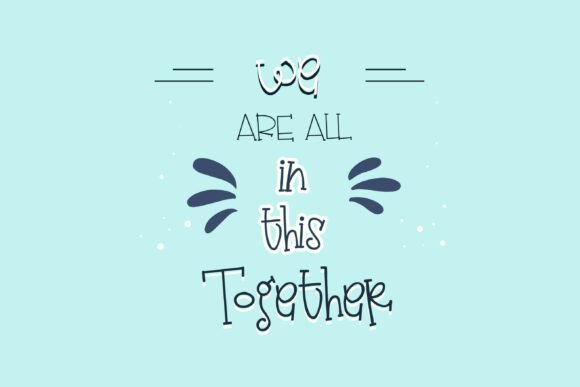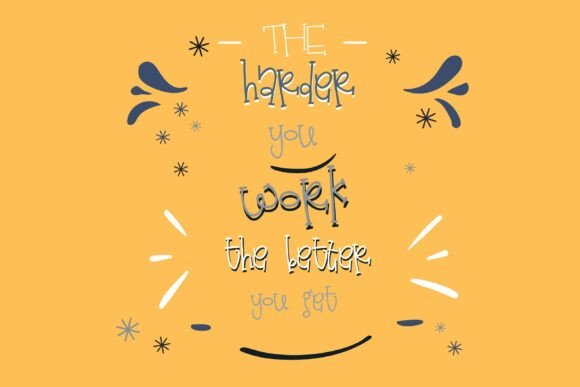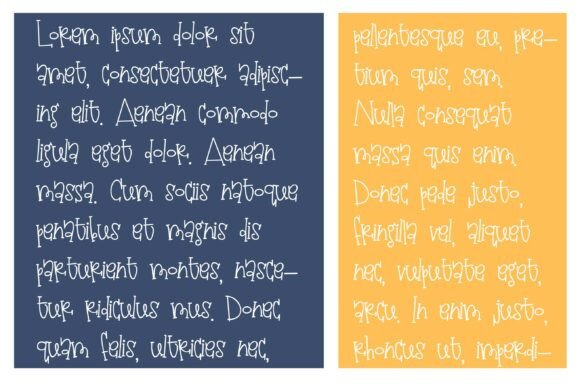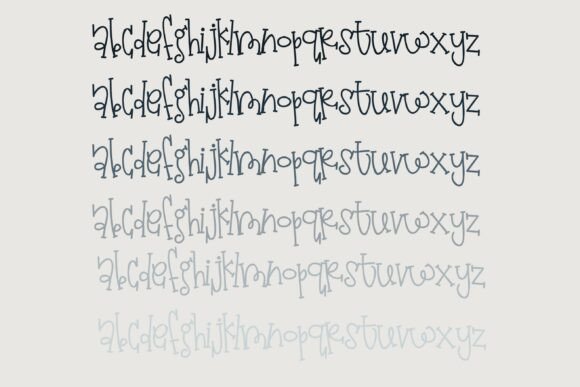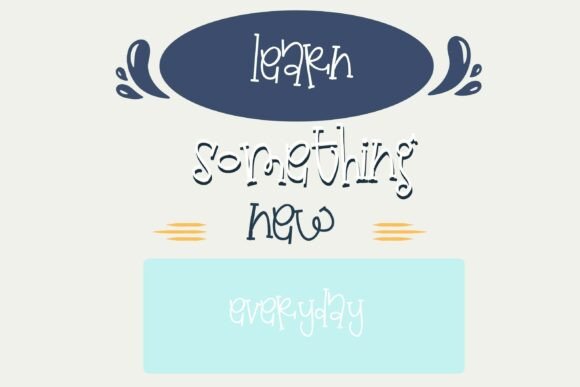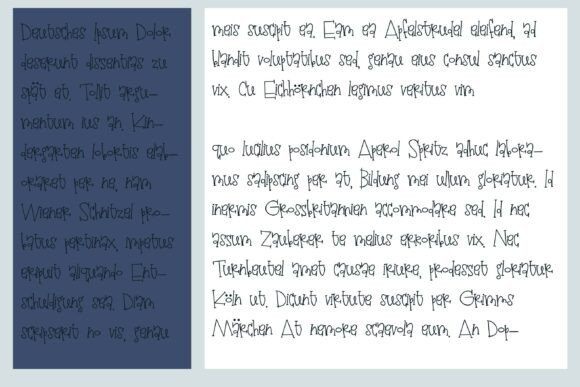
Unleashing Whimsy with the Buffledance Font
Have you ever found yourself stuck in a creative rut, staring blankly at a blank page, searching for the perfect font to bring your imagination to life? It’s a familiar feeling for many designers. But what if you could tap into a font that’s bursting with personality and whimsy, ready to add a touch of magic to your next project?
Meet the Buffledance Font, a bouncy, animated serif font designed to transport you to a world of wonder and enchantment. With its tall, loopy letters and playful swashes, this font is made for imaginative designs – from nursery prints and storybooks to branding that needs a bit of extra sparkle. Whether you’re a seasoned designer or just starting out, the Buffledance Font is a valuable addition to your toolkit, offering a unique and captivating way to express your creativity.
Buffledance Font Key Features
- Font Family: Buffledance, Buffledance Bold, Buffledance Italic, Buffledance Bold Italic
- Unique Characteristics: Unique, hand-drawn design with a mix of modern and vintage elements, and a wide range of language support (including Latin, Cyrillic, and Greek scripts)
Buffledance Font Review
Overall, I found the Buffledance Font to be an interesting and unique addition to the world of typography. There are a few aspects that really shine ✨.
- Handwritten feel: The Buffledance Font has a beautiful, handwritten feel to it, which makes it perfect for projects that need a touch of personality.
- Character variation: The font has a great range of character variations, making it suitable for a variety of uses, from body text to headlines.
- Cursive and script options: The font includes both cursive and script options, giving users a lot of flexibility when it comes to choosing the right style for their project.
However, I did encounter a few limitations ⚠️:
- Limited language support: Unfortunately, the font only supports a limited range of languages, which may be a problem for projects that require text in multiple languages.
- Not ideal for small font sizes: While the font looks great at larger sizes, it can become difficult to read at smaller sizes, which may be a problem for projects where text is displayed at a small size.
Overall, I would recommend the Buffledance Font for projects where a unique, handwritten feel is desired. However, users should be aware of the limitations and take them into consideration when choosing this font for their project.
Tips for Getting the Most Out of Buffledance Font
Use Buffledance Font for creative projects that require a unique and eye-catching font style.
Experiment with different font sizes, colors, and effects to create a visually appealing design.
Use Buffledance Font for:
• Creative projects such as posters, flyers, and social media graphics.
• Branding and marketing materials such as logos, business cards, and letterheads.
Comparison to Buffledance Font: While Buffledance Font has a playful and whimsical feel, Great Vibes Font is more refined and sophisticated. Great Vibes Font has a more traditional script font look, whereas Buffledance Font has a more modern and unique style.
For optimal readability, we recommend using the Buffledance Font at a minimum size of 12 points (24 pixels) with a line height of 1.5 to 2 times the font size. However, these values may vary depending on your specific design requirements and the context in which the font will be used.